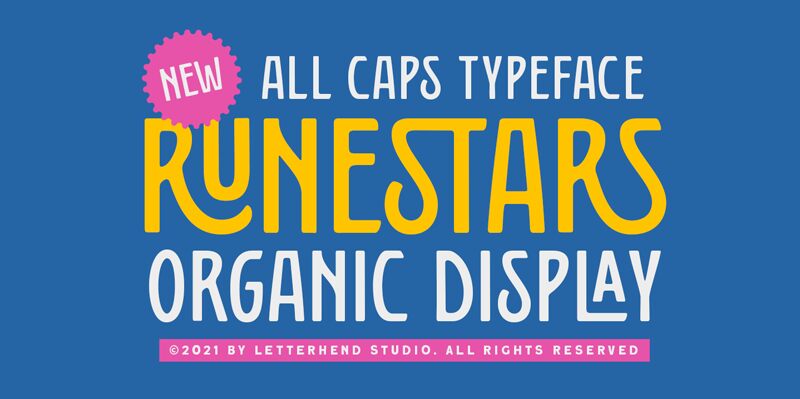
Runestars, crafted by the imaginative minds at Letterhend Studio, stands as a beacon of nostalgia in the realm of typography. This semi-light, extra-condensed display font embodies a retro essence that harks back to bygone days, yet its organic flair and hand-lettered naturalness ensure it resonates with contemporary design sensibilities. With Runestars’ unique ligatures and strong character, it transforms text into a distinctive visual narrative.
Perfect for an array of creative endeavors, Runestars excels in crafting logos that demand attention and branding materials that tell a story. Whether adorning the pages of magazines and books or providing an elegant touch to invitations and greeting cards, this font is versatile enough to enhance formal documents without sacrificing personality. Its suitability extends to packaging designs, fashion branding, stationery adornments, novel covers, and any advertising medium seeking a blend of modern appeal with a touch of tradition. Runestars is not just a font—it's an experience tailored for creators who dare to stand out.